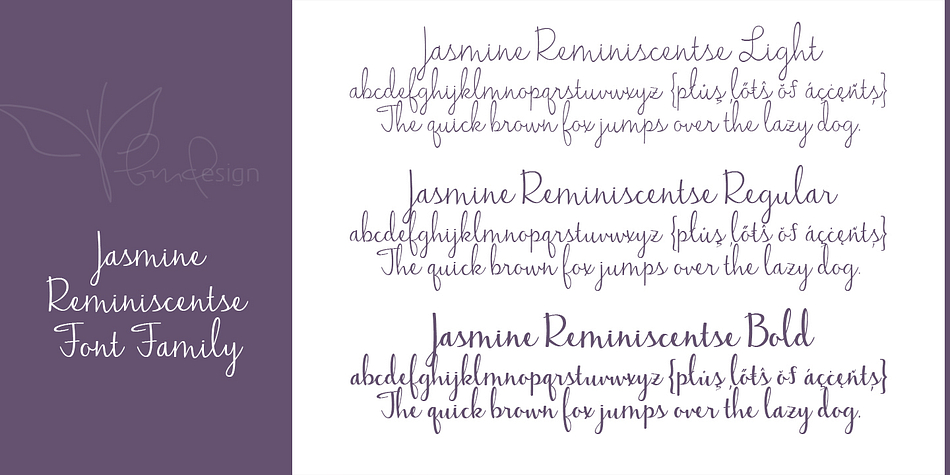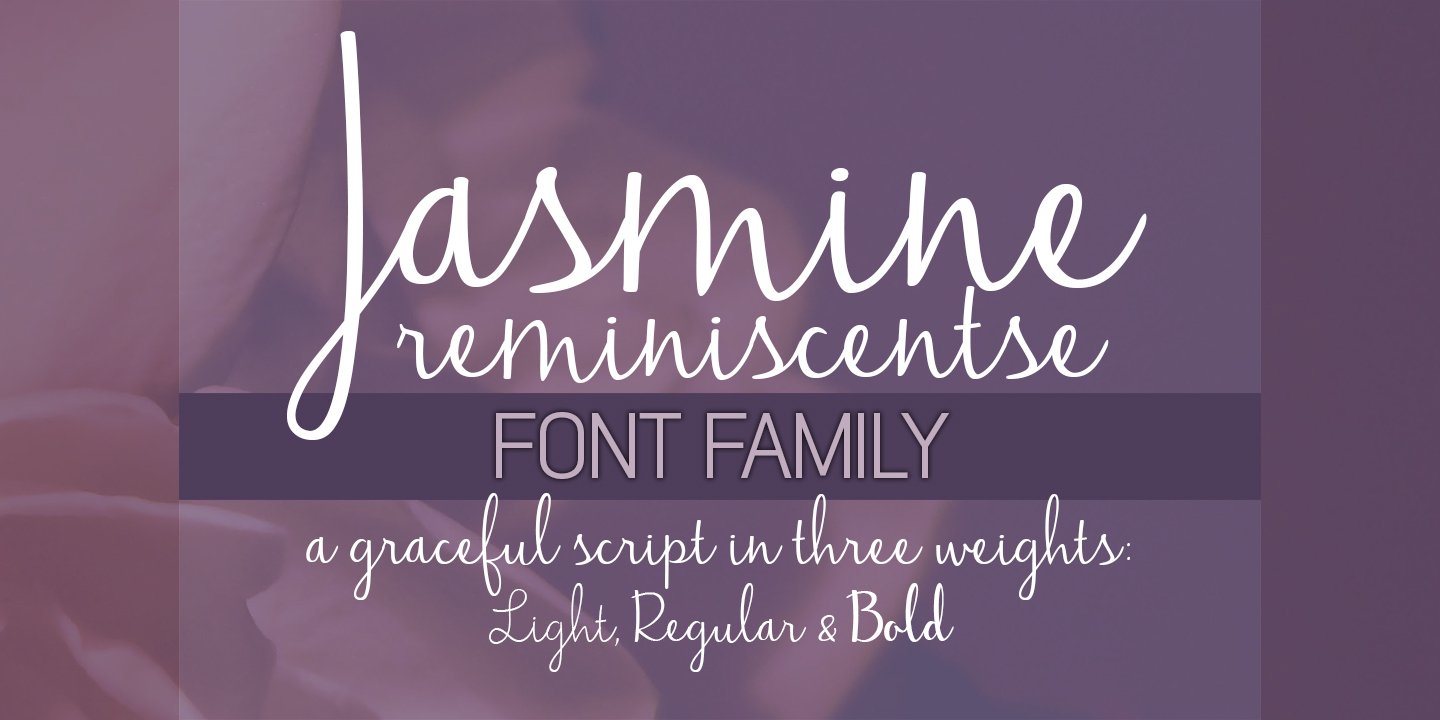
Jasmine Reminiscentse is a hand drawn and script font family. This typeface has three styles and was published by Brittney Murphy Design.
Jasmine Reminiscentse is an elegant, smooth & connecting type in 3 weights- light, regular and bold.